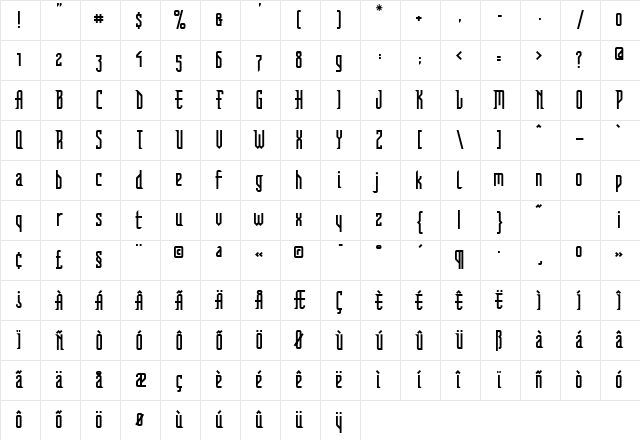
FFVortex Regular Free Font
FFVortex Regular
Design Context for FFVortex
FFVortex is a composed and adaptable typeface that performs quietly and consistently across a wide range of design contexts.